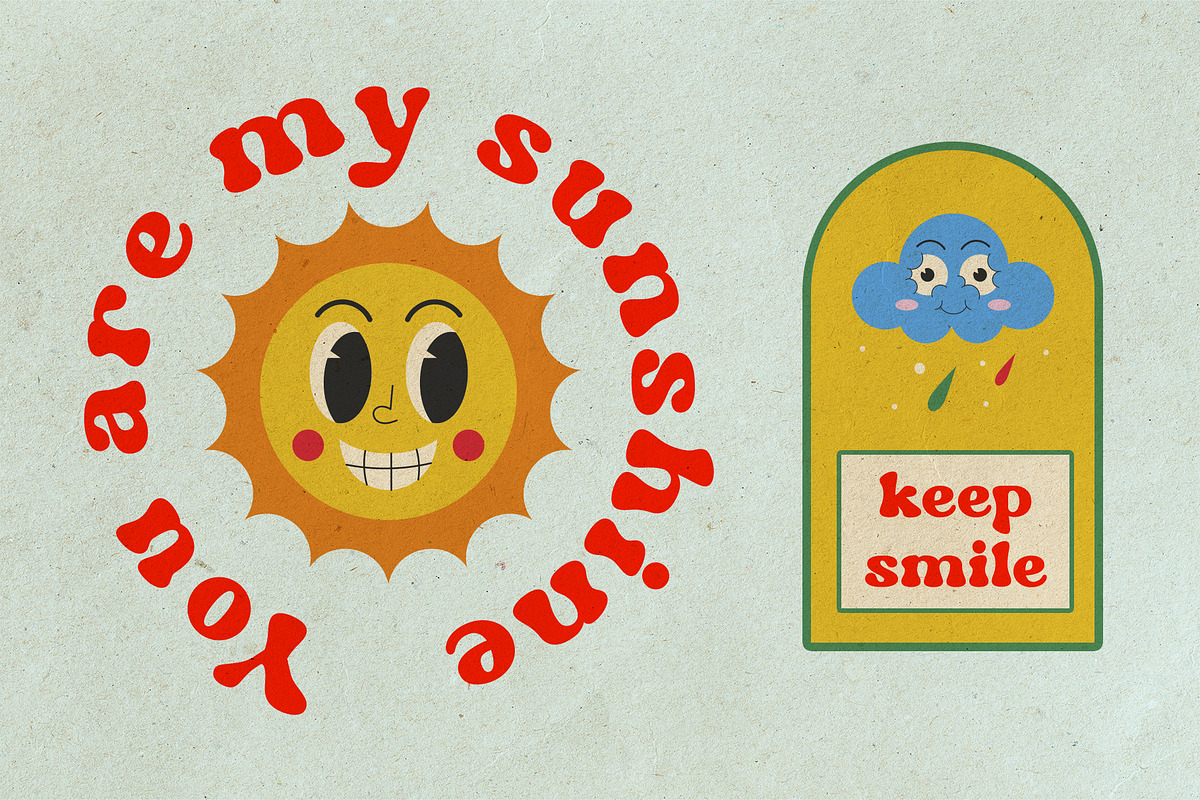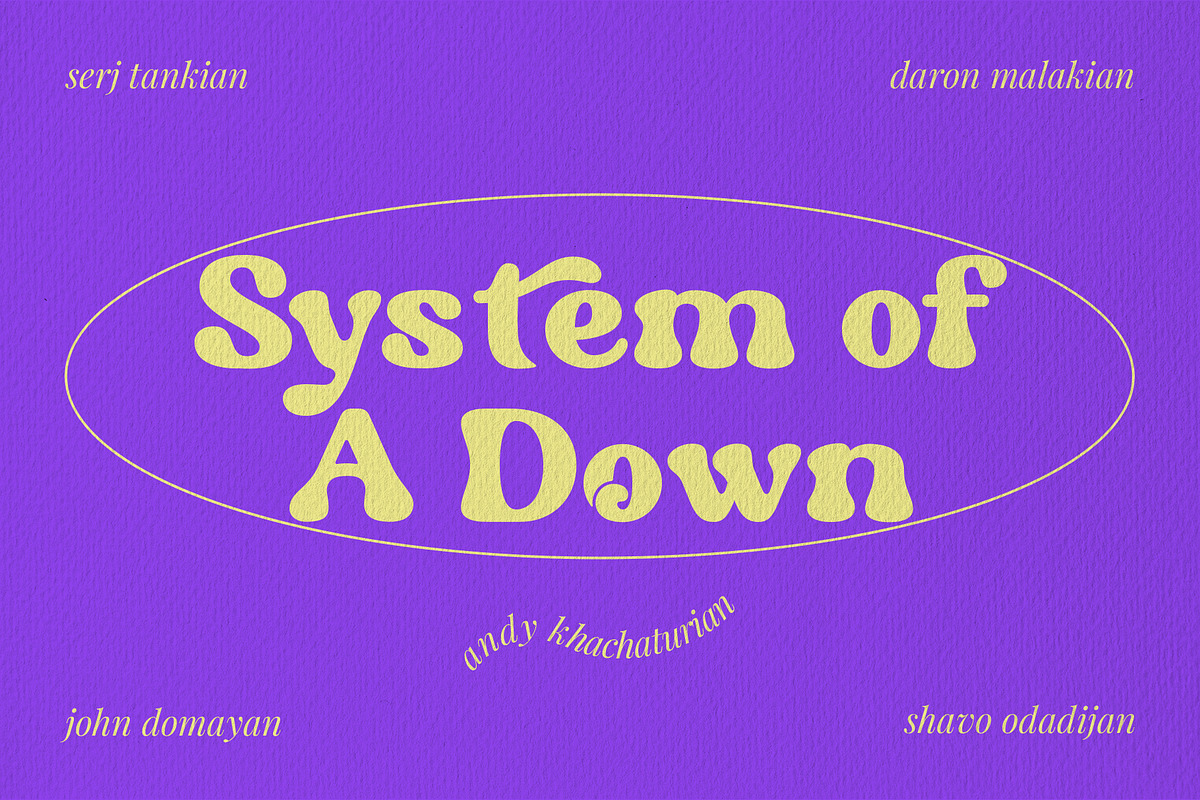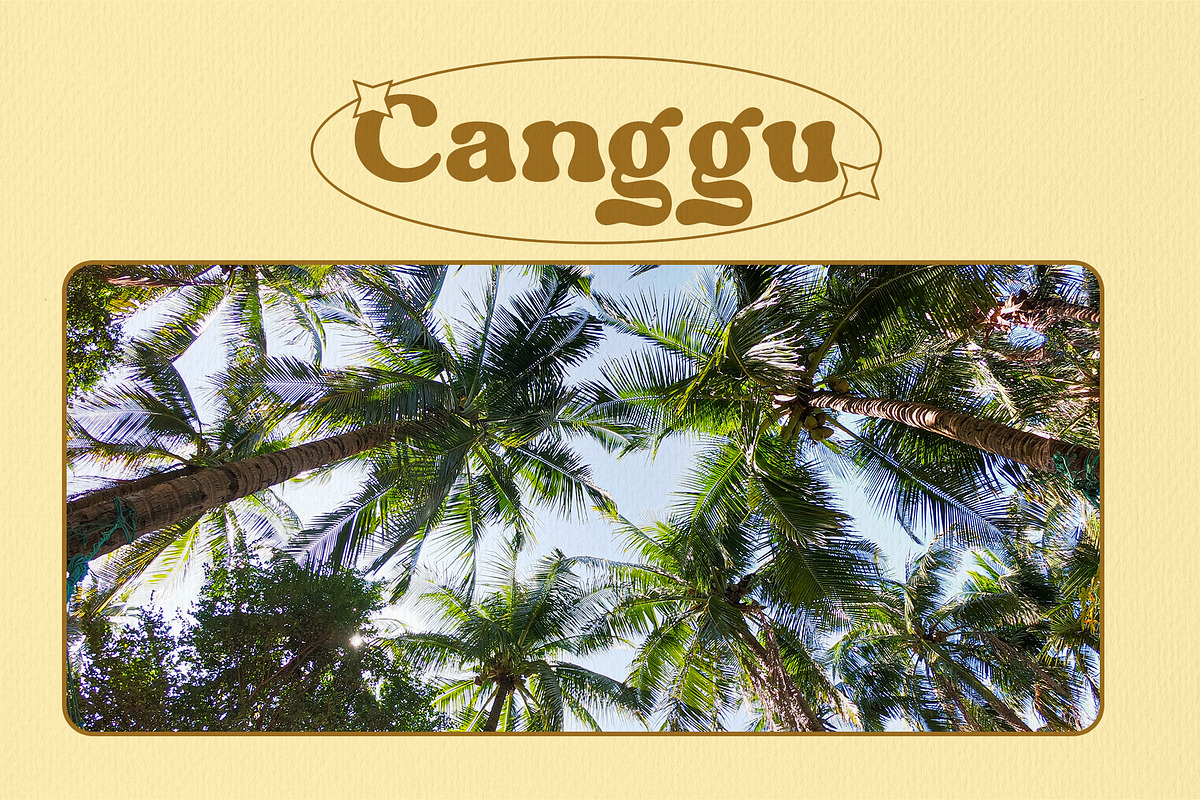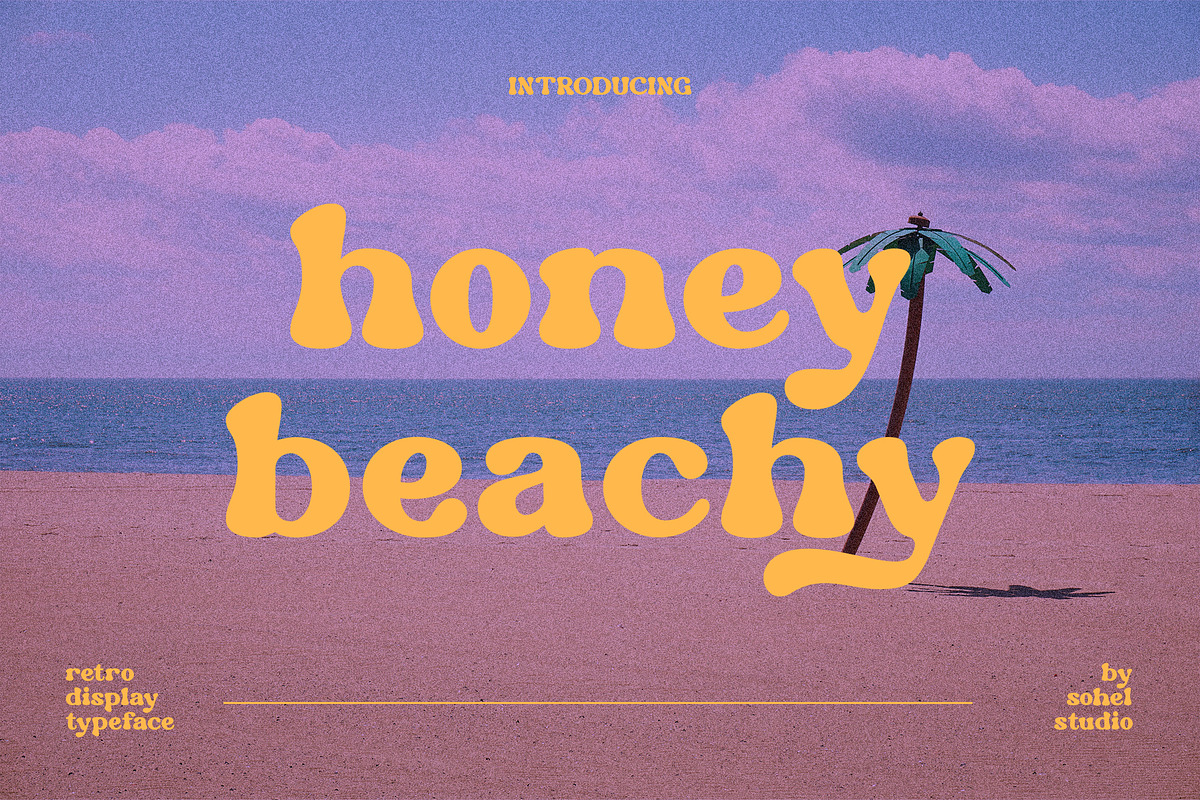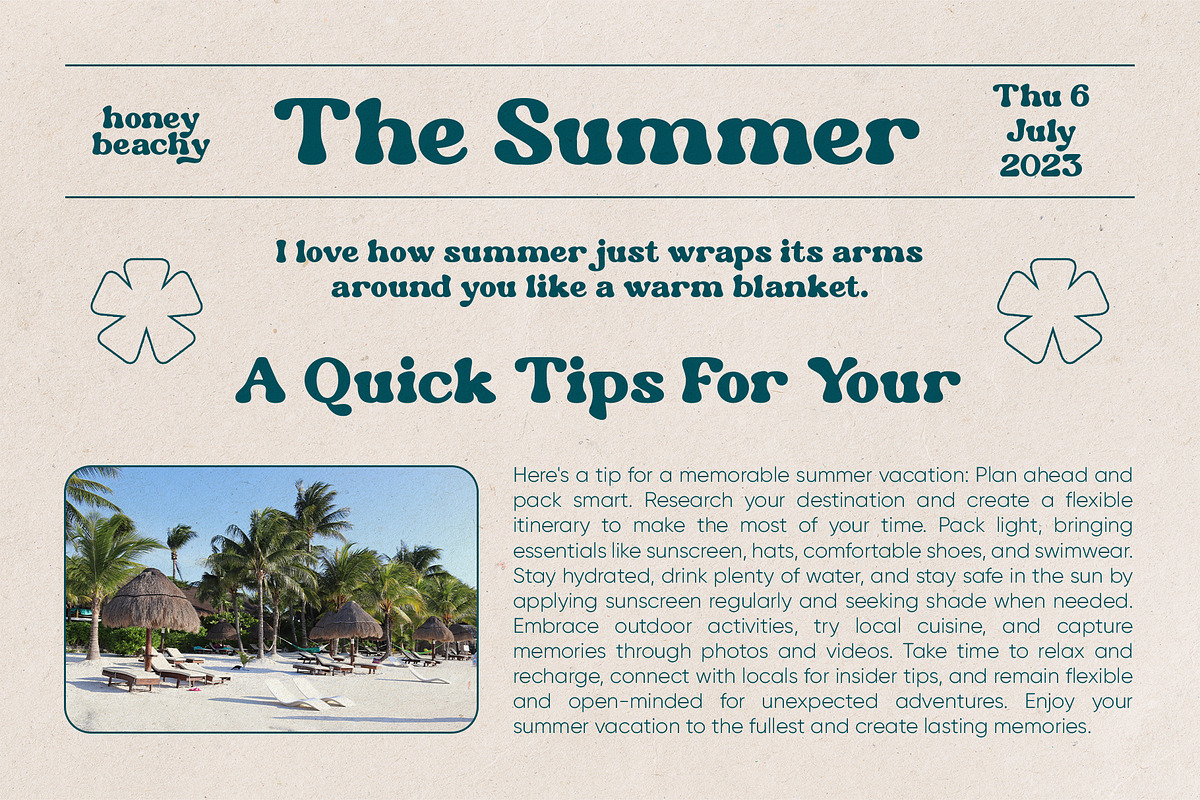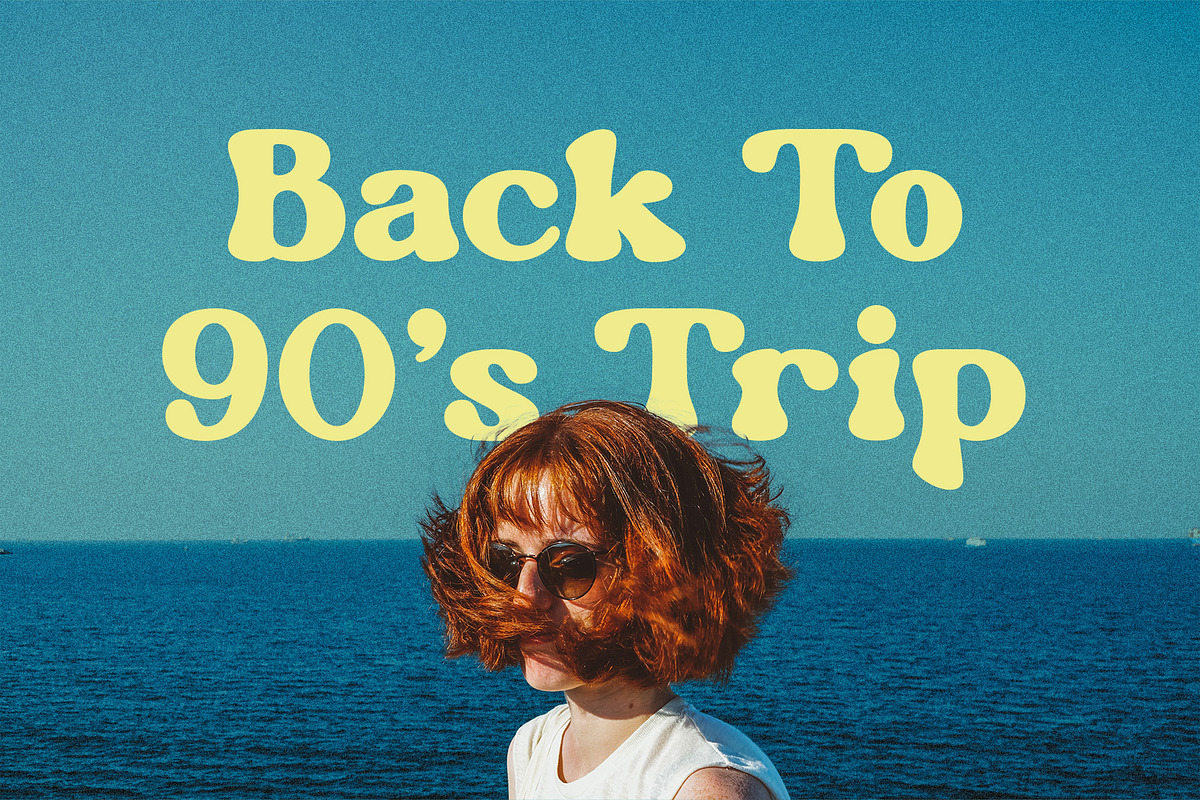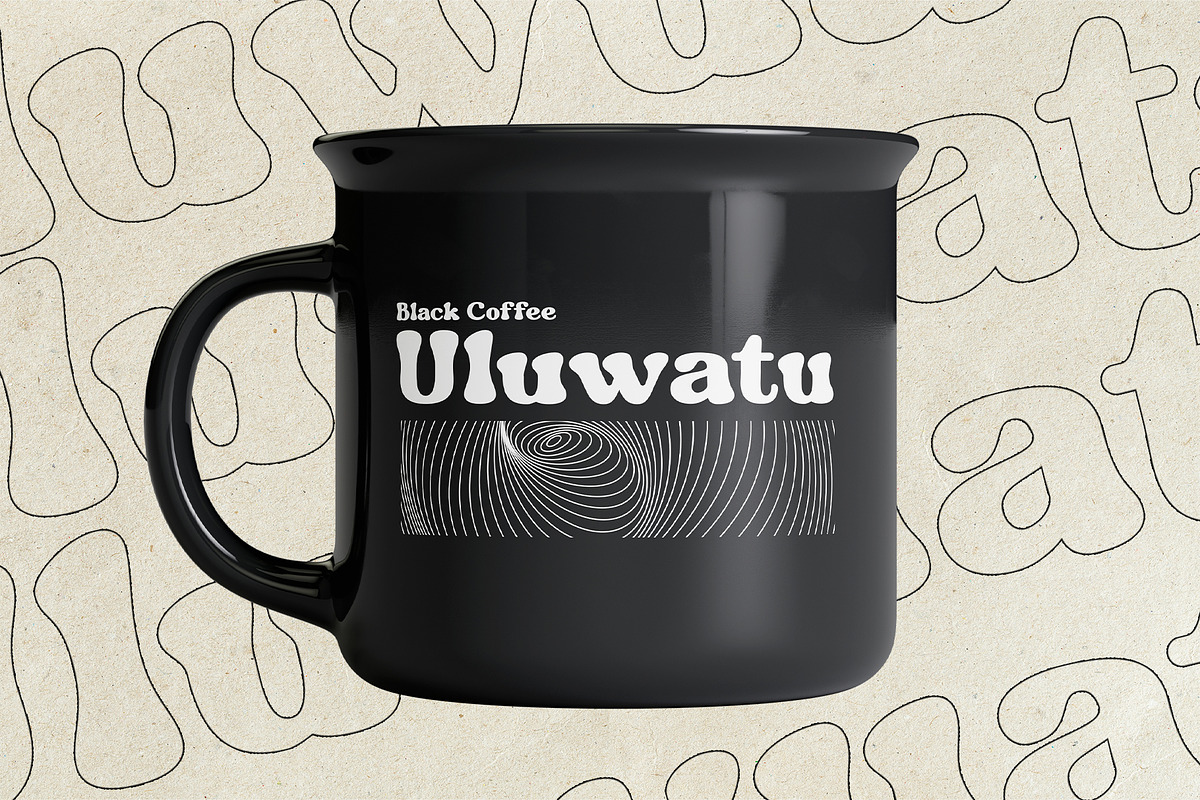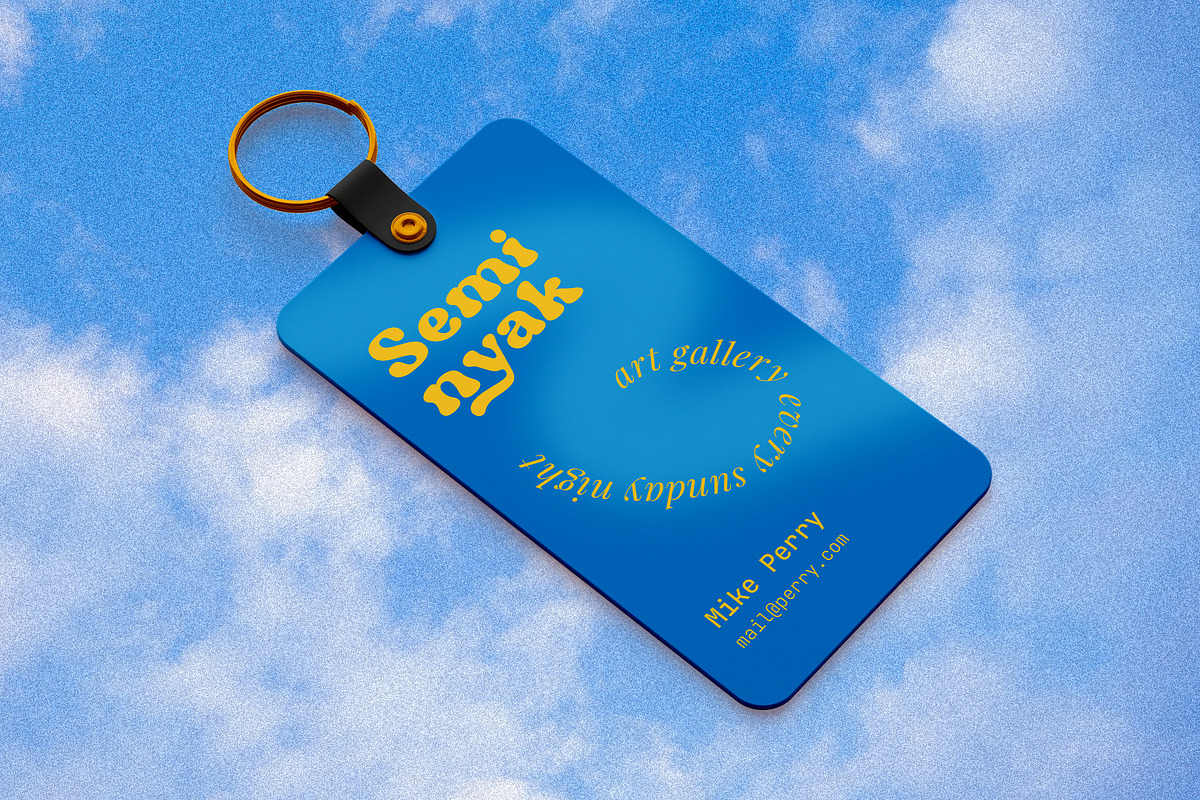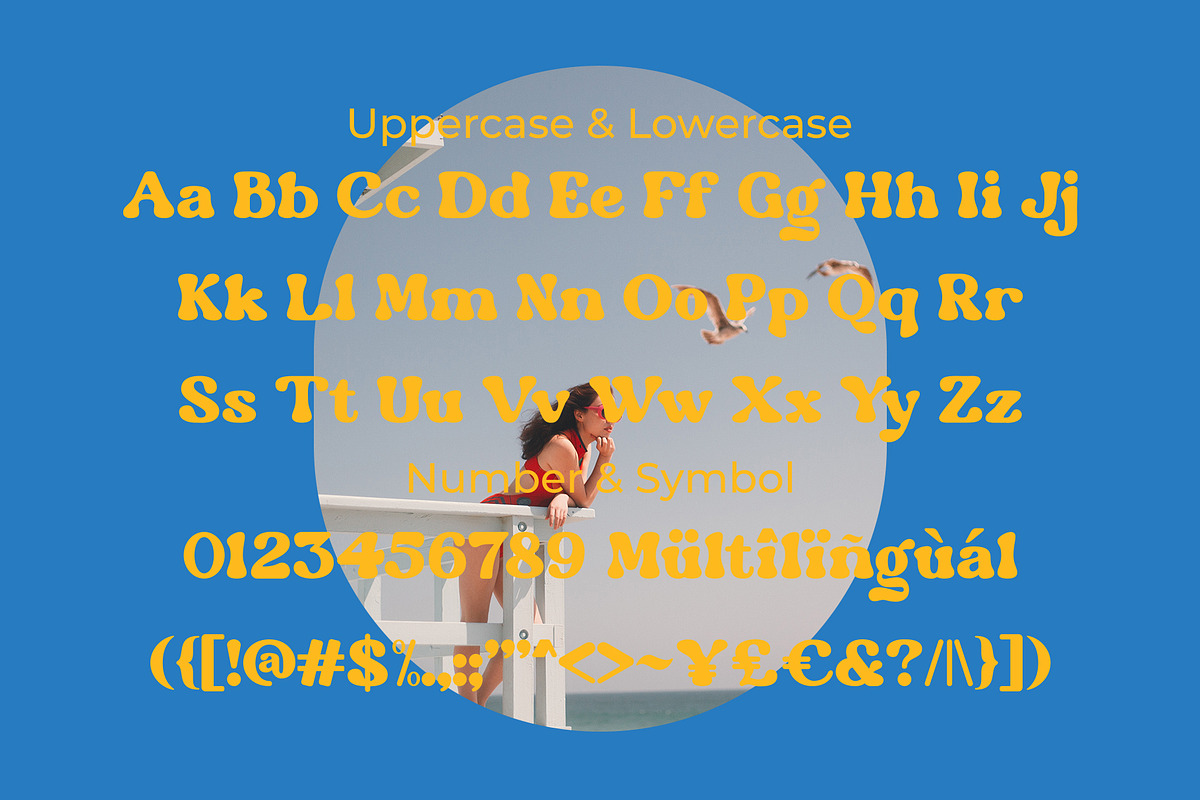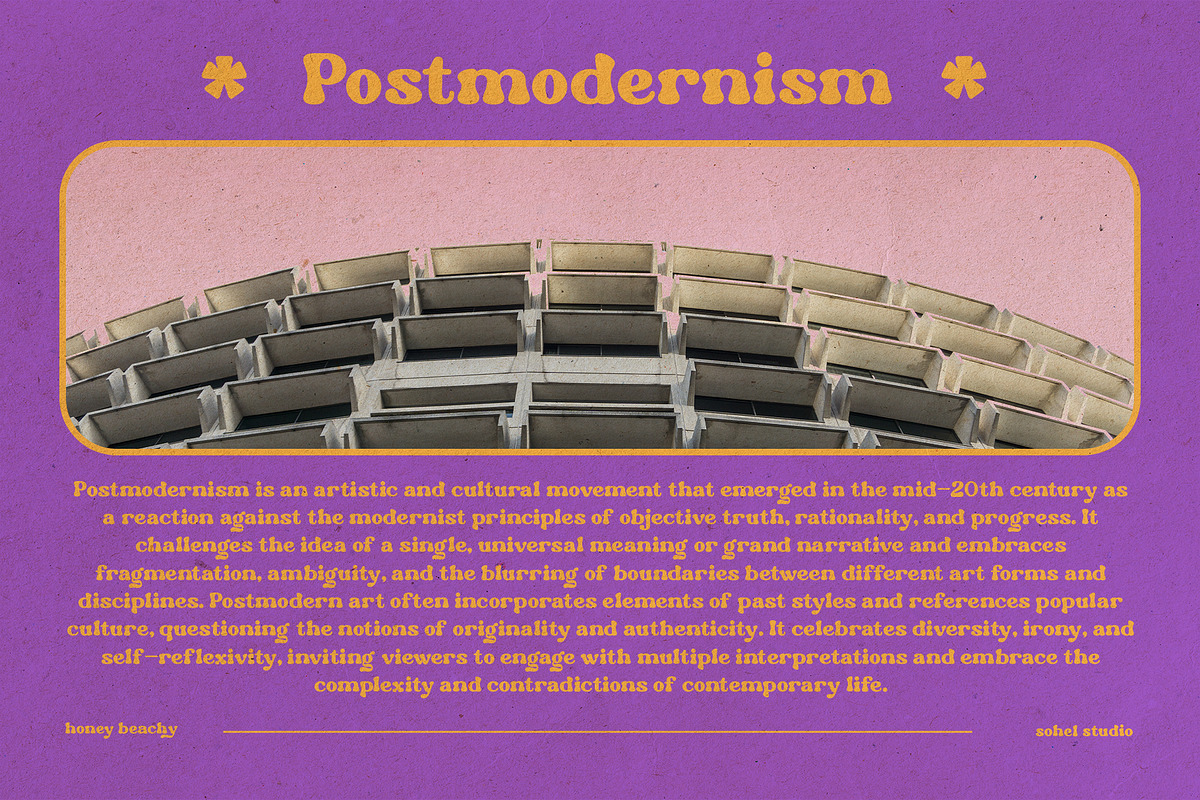
Honey Beachy - Poster & Banner Font
Honey Beachy is a retro display serif font that exudes a classic charm and bold character. With its design inspired by retro styles, this font brings an elegant touch and evokes a sense of the past. Each letter is meticulously crafted with careful attention to detail and proportion, resulting in a visually appealing and unique appearance.
Honey Beachy is perfect for projects that require a vintage feel, such as posters, logos, packaging, and promotional materials that aim to capture a nostalgic and sophisticated atmosphere. This font will add a special touch to your designs and captivate viewers with its retro allure and distinctiveness.
Honey Beachy Features:
- 3 Weight ( Regular, Slant, Outline)
- Uppercase And Lowercase
- Alternates And Ligature